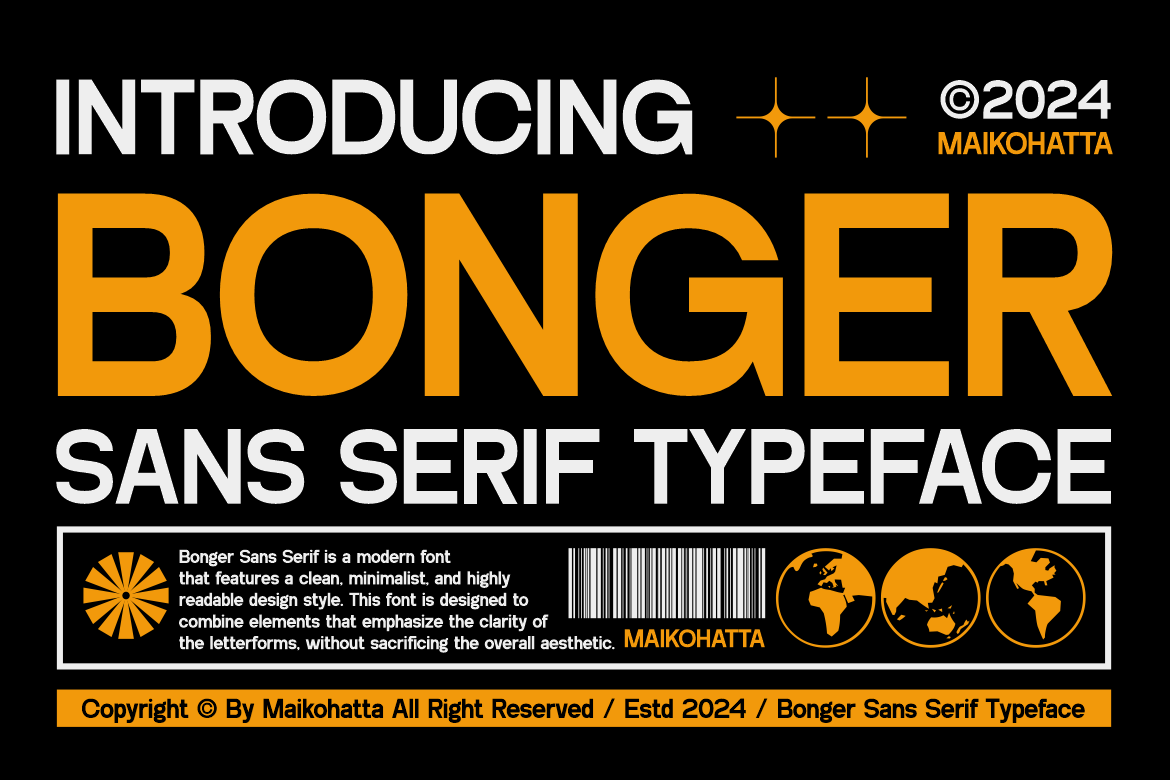
Bonger - Sans Serif Typeface
Introducing our new product Bonger - Sans Serif Typeface
Bonger - Sans Serif Typeface is a bold and authentic display font. The font is suitable for any branding project like logo, Template Design, esport, and many more. outstanding in a wide range of contexts.